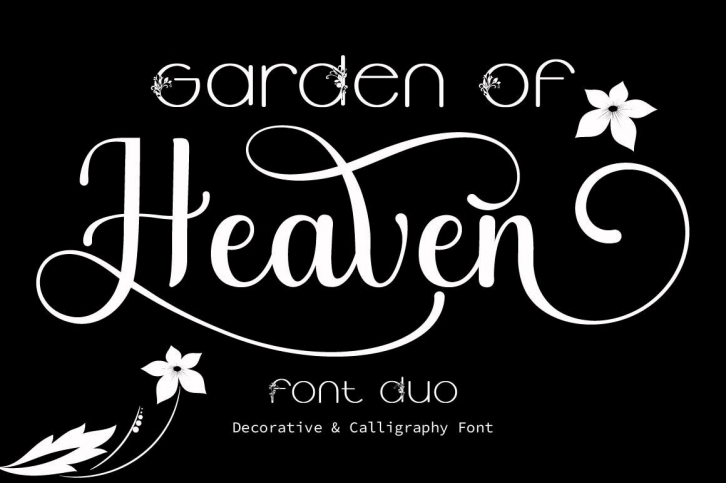
Garden of Heaven consists of two fonts designed to complement each other perfectly. A decorative font with a touch of flowers, and modern calligraphy font. Together or apart, these fonts are ideal for adding a chic and cheery touch to your crafts. This font is PUA encoded, which means you can access all of the glyphs and swashes with ease!